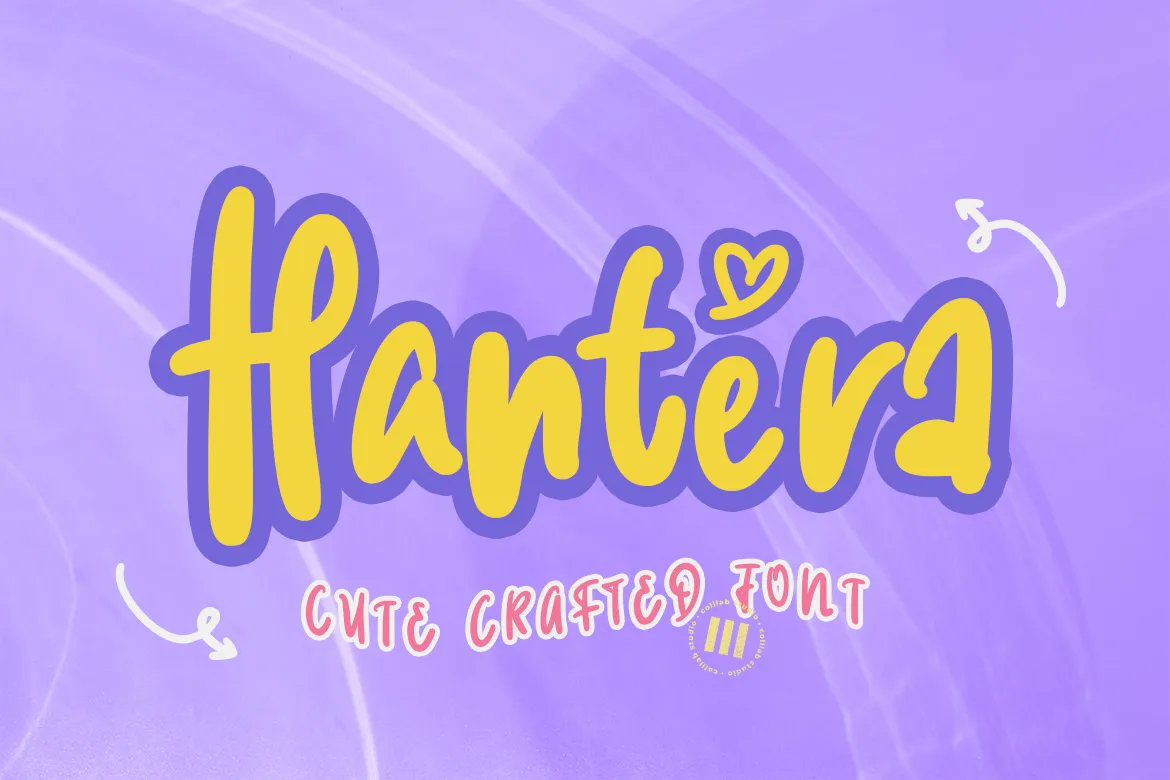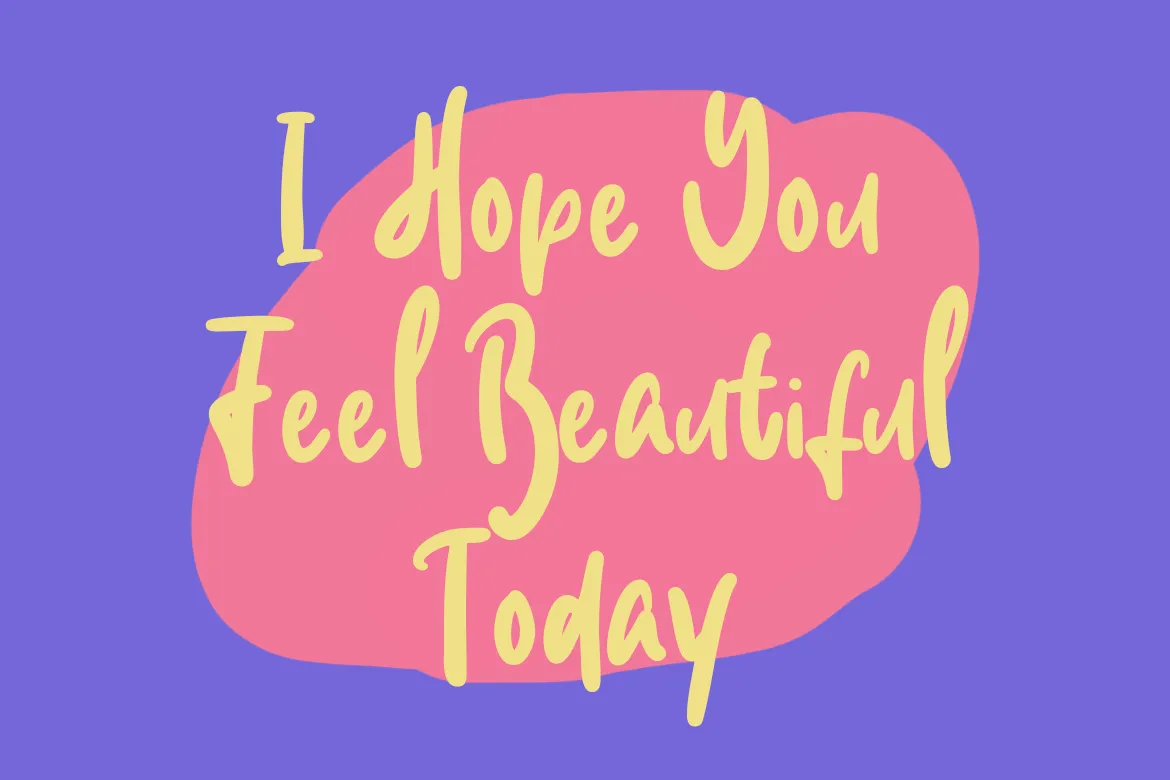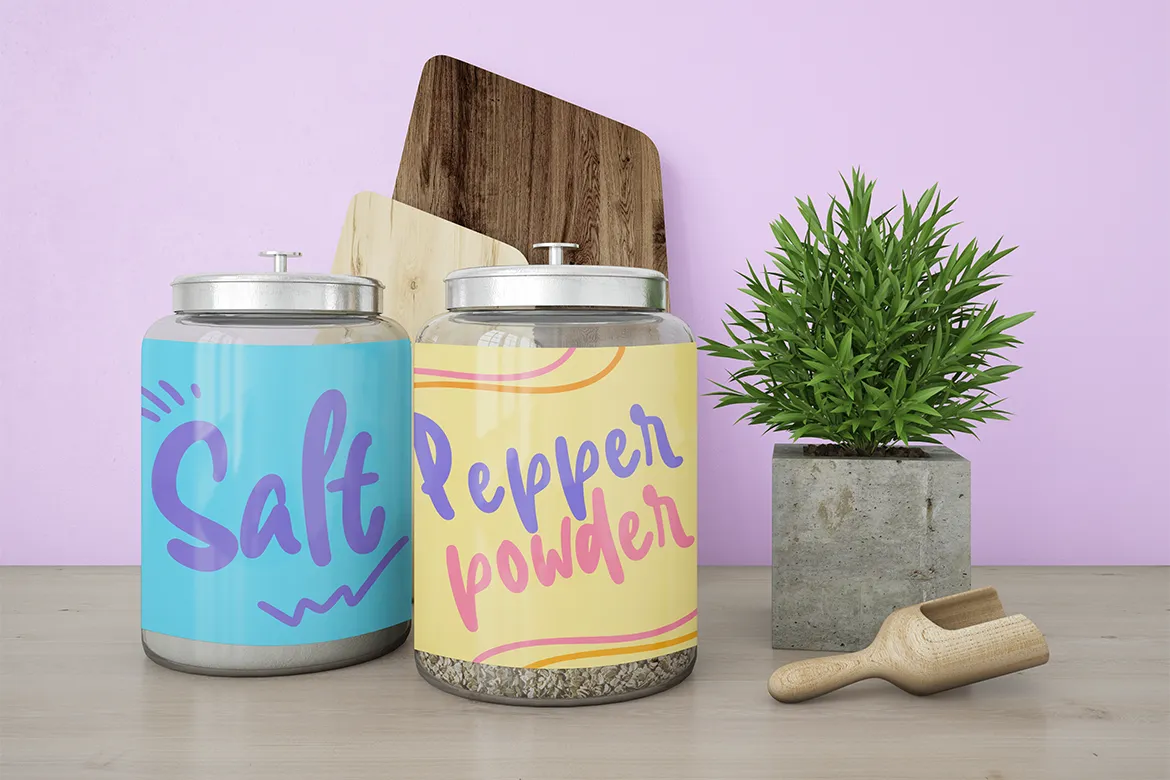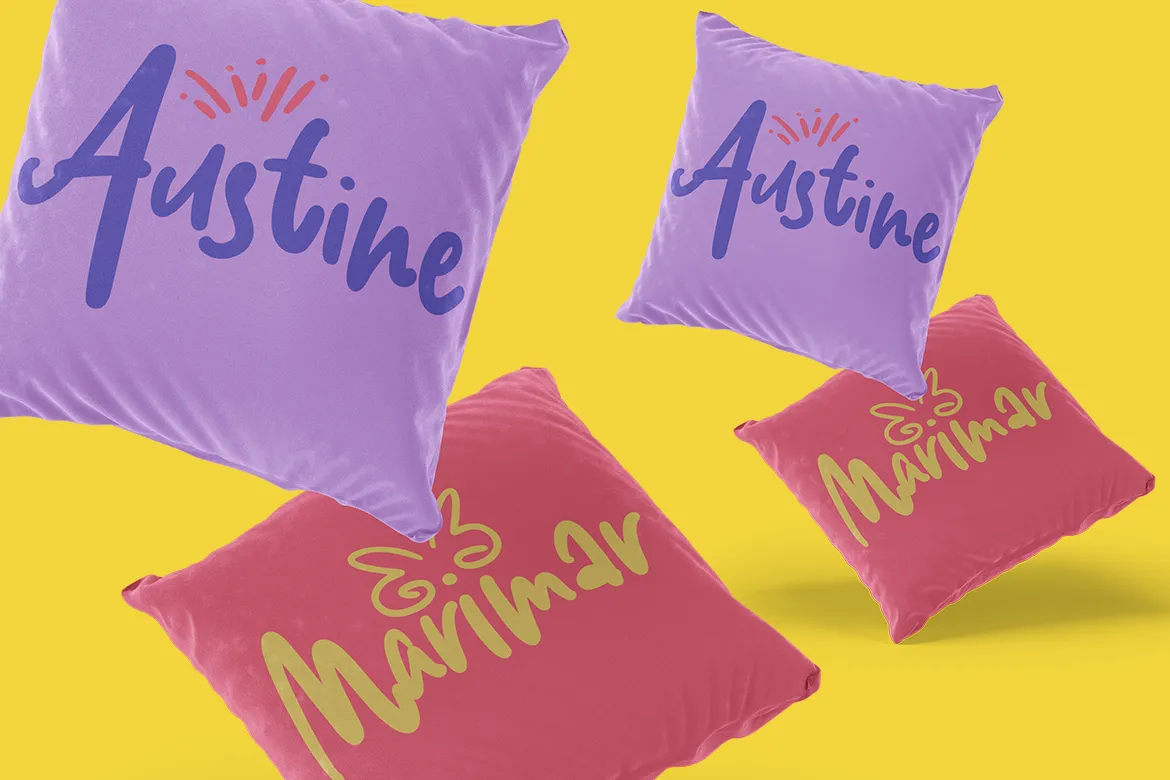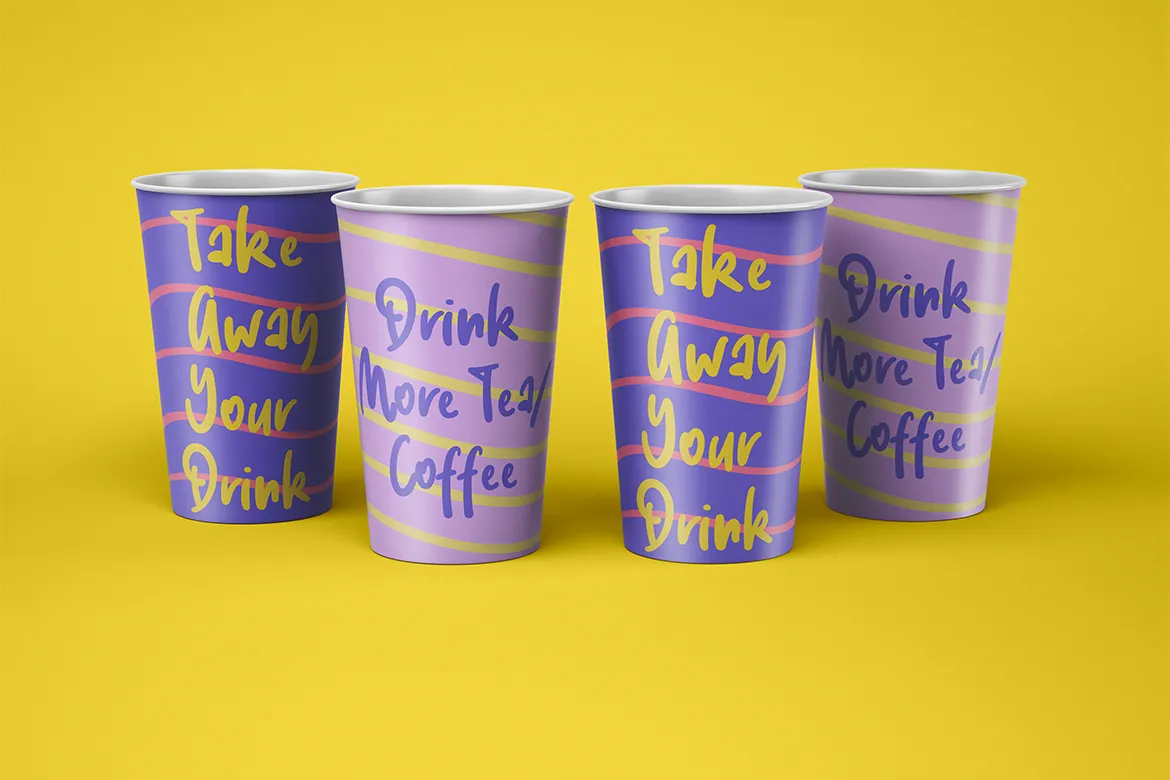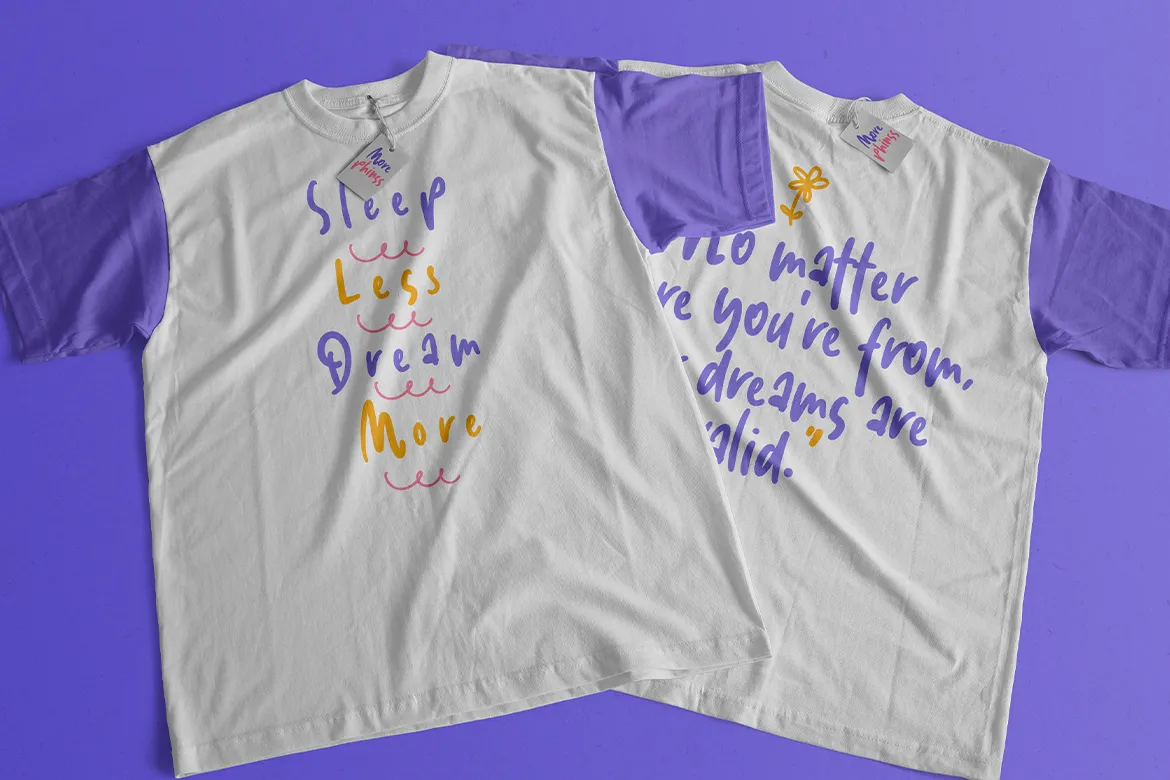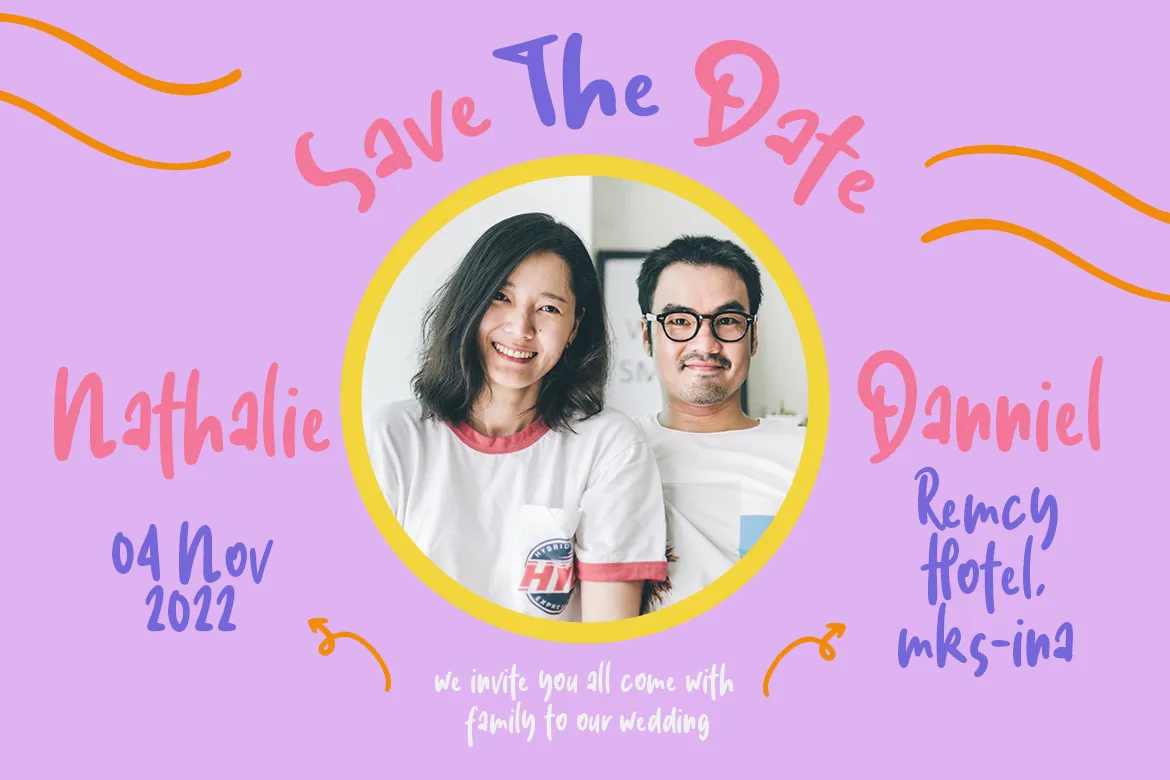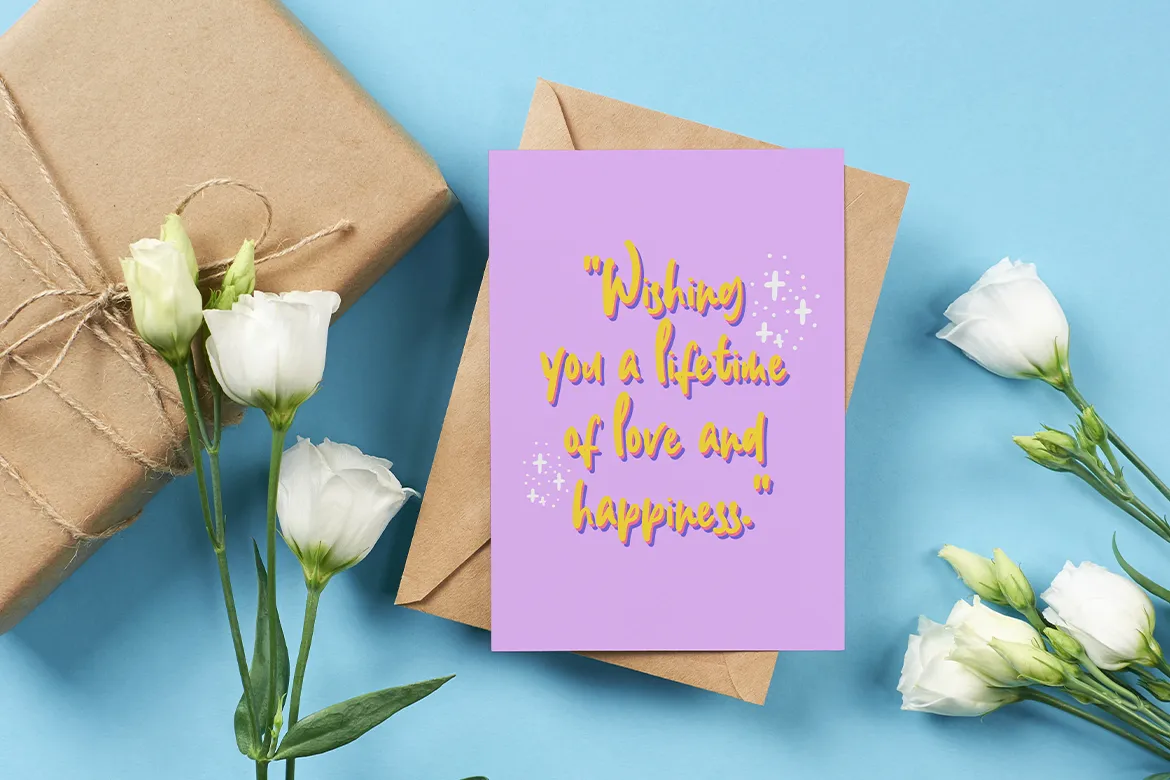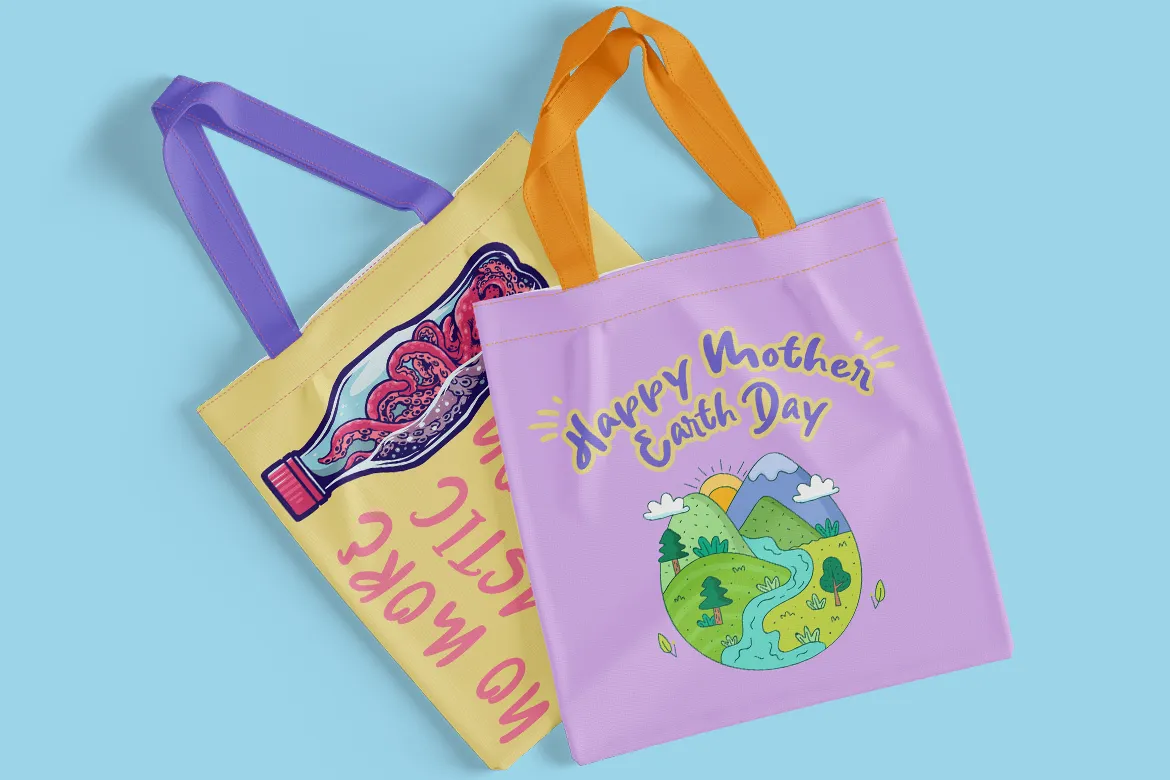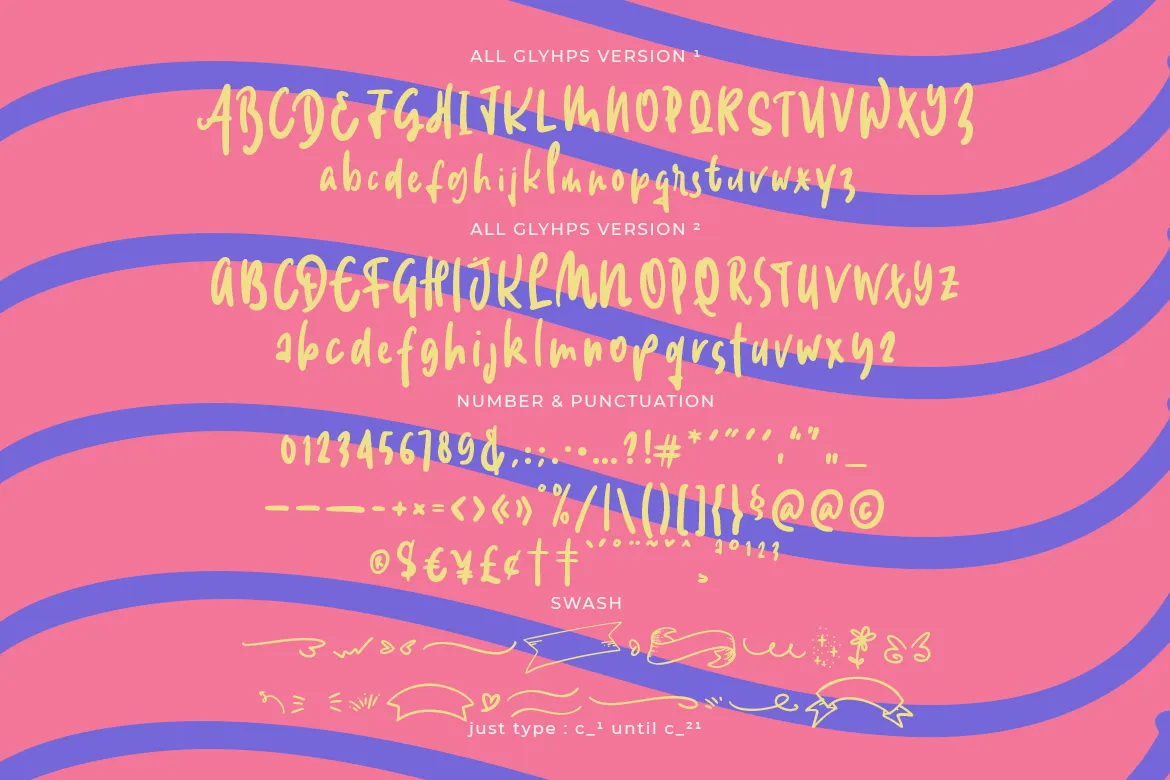
So we’re here to take some of the frustration out of your search, with Hantera: a brand new crafted font that oozes elegance and luxury but still fun. It’s super versatile and makes for a perfect addition to your next design project, whether that’s wedding invitations or greeting cards or anything in between. It’s ideal for any project that requires a personal touch.
Hantera contains upper and lower case letters, numbers, punctuation, and extended language support. It also includes OpenType features like Contextual Alternates and Stylistic Alternates to add variety to the text.